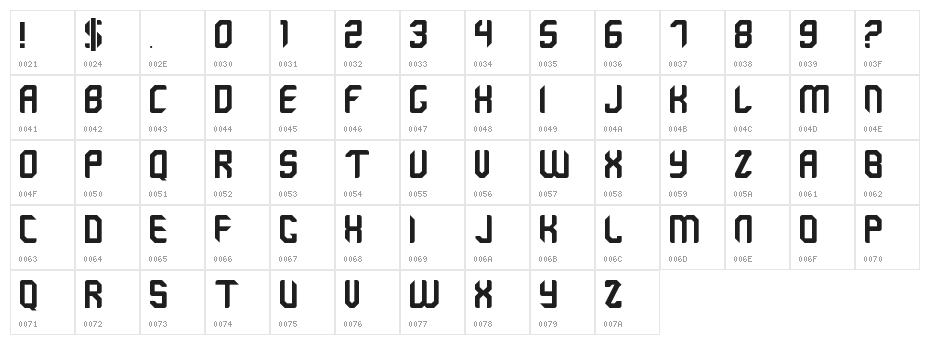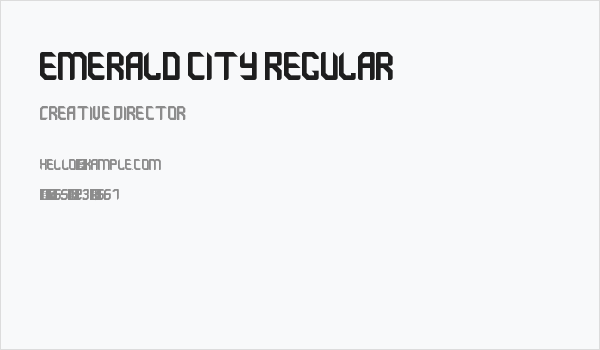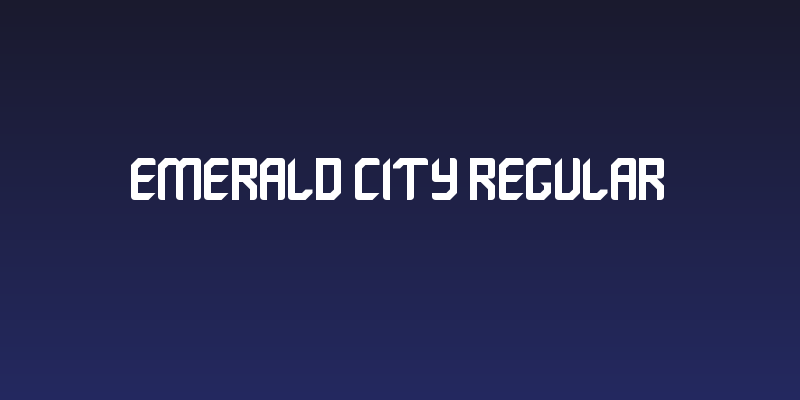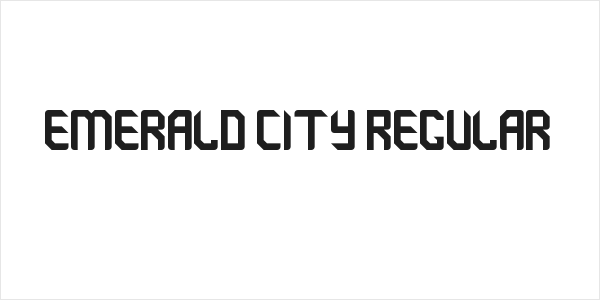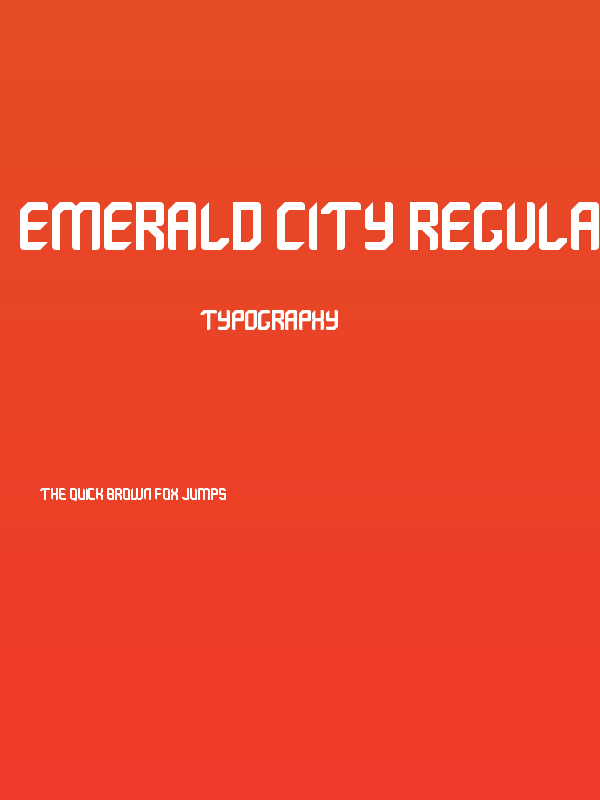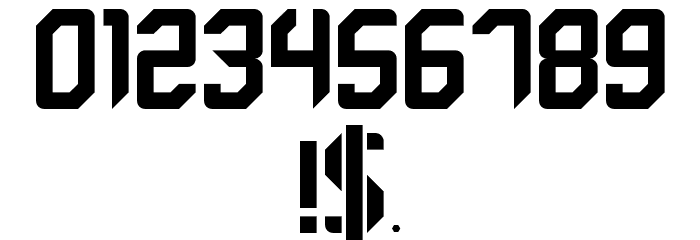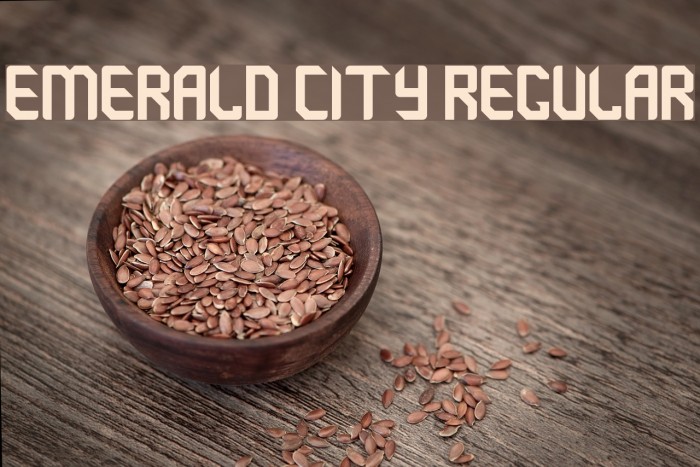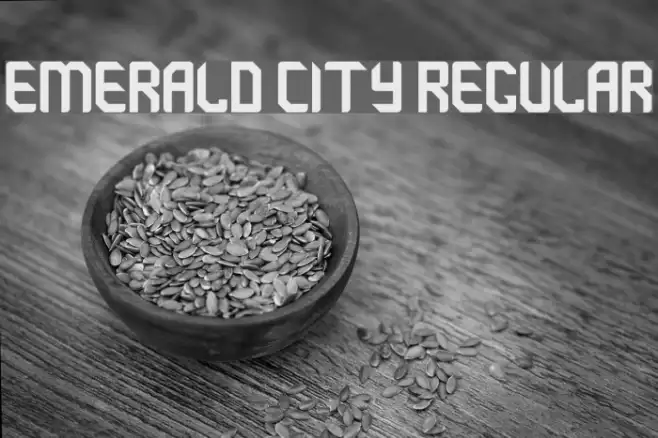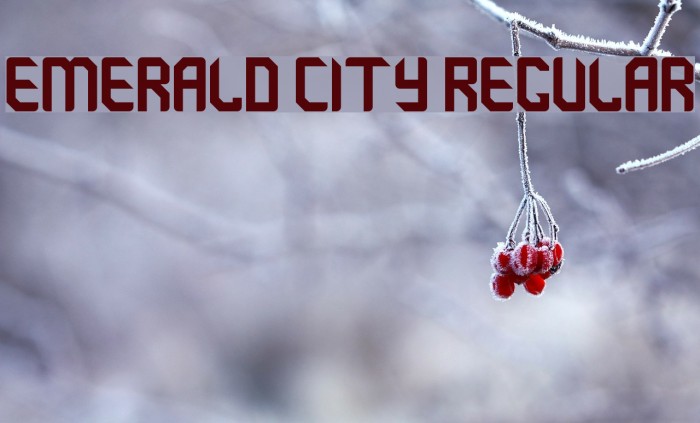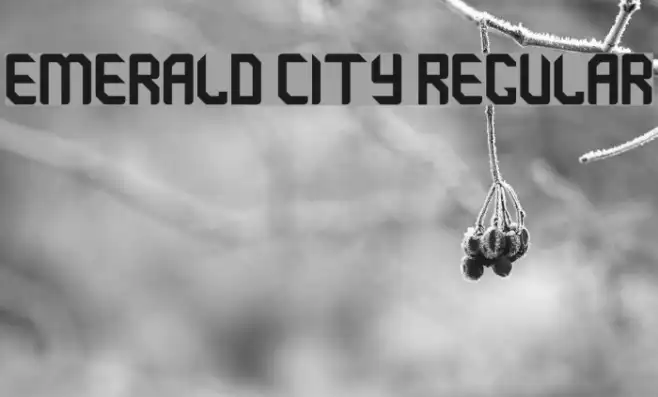
emerald city Regular Font
emerald city Regular Description
This font features a bold, geometric design with a futuristic aesthetic. The characters are constructed with straight lines and sharp angles, creating a sense of precision and modernity. The uppercase and lowercase letters maintain a consistent height, contributing to a uniform appearance. The numerals and special characters follow the same design principles, ensuring cohesion across all glyphs. The overall style is distinctive and eye-catching, making it suitable for projects that require a strong visual impact.
| Proposed Projects | Ideal for sci-fi themed projects, technology branding, video game titles, and futuristic posters. |